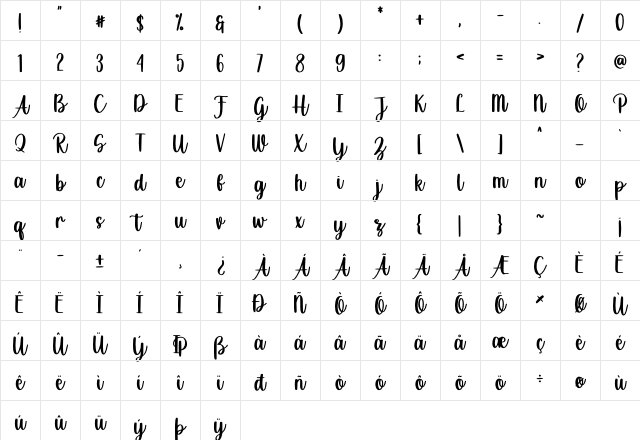
Bettermilk Regular Free Font
Bettermilk Regular
Designer: Panggah Laksono @ Abo Daniel Studio
Design Context for Bettermilk
Bettermilk is a composed and adaptable typeface that performs quietly and consistently across a wide range of design contexts.